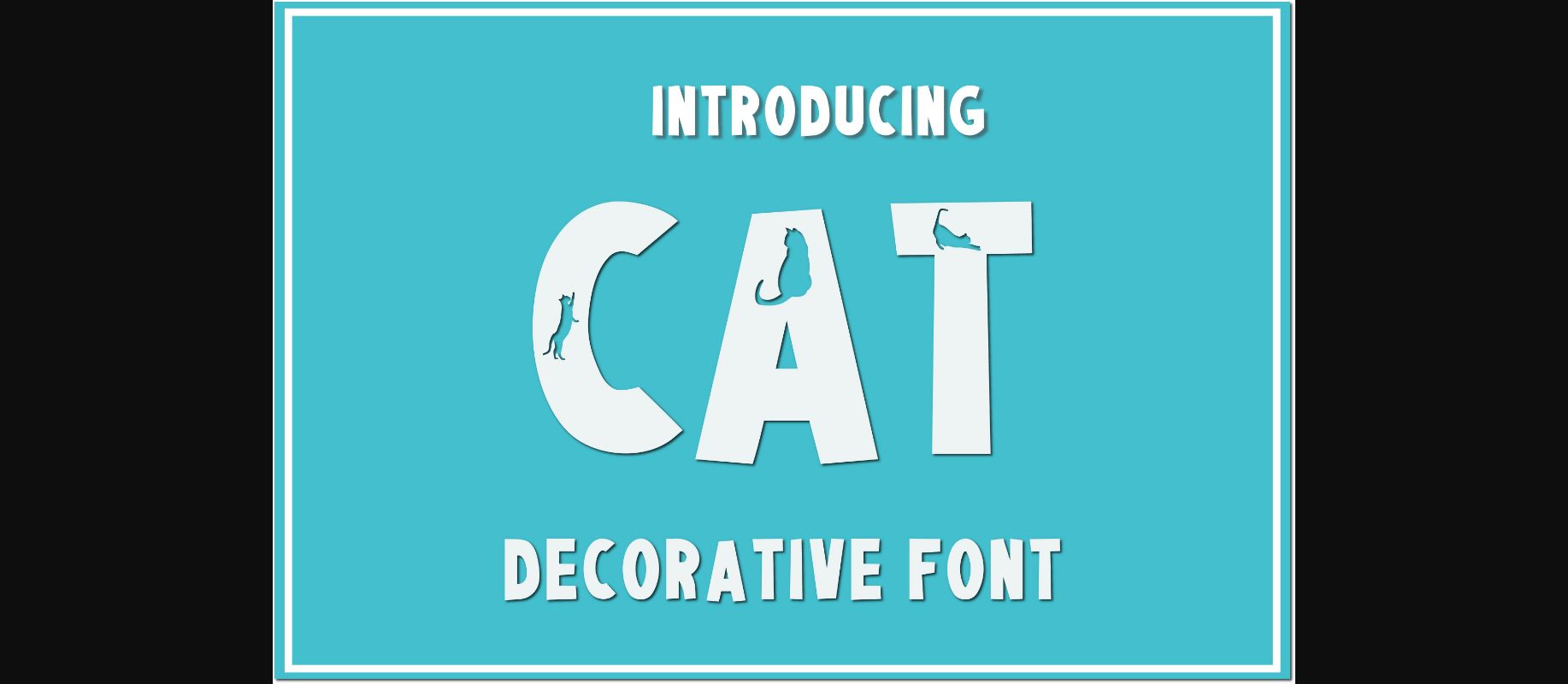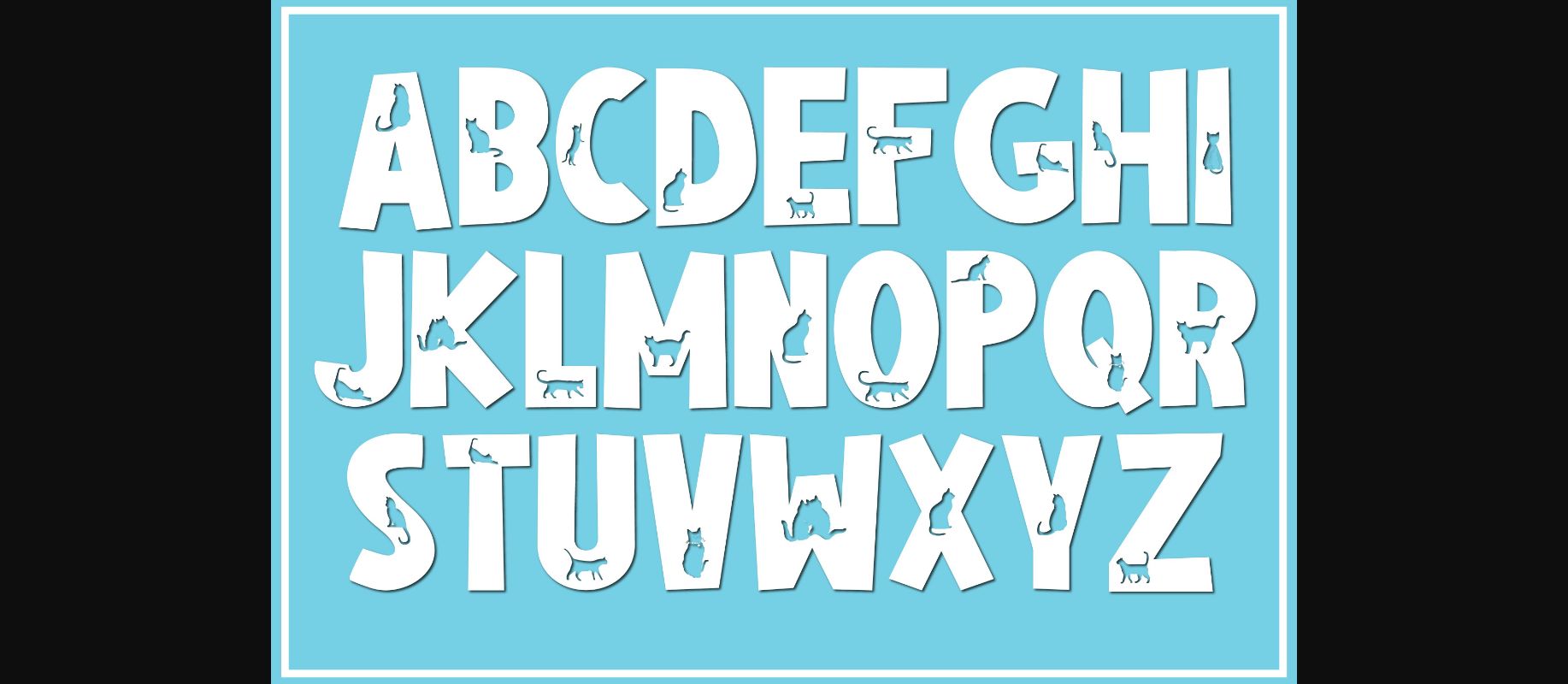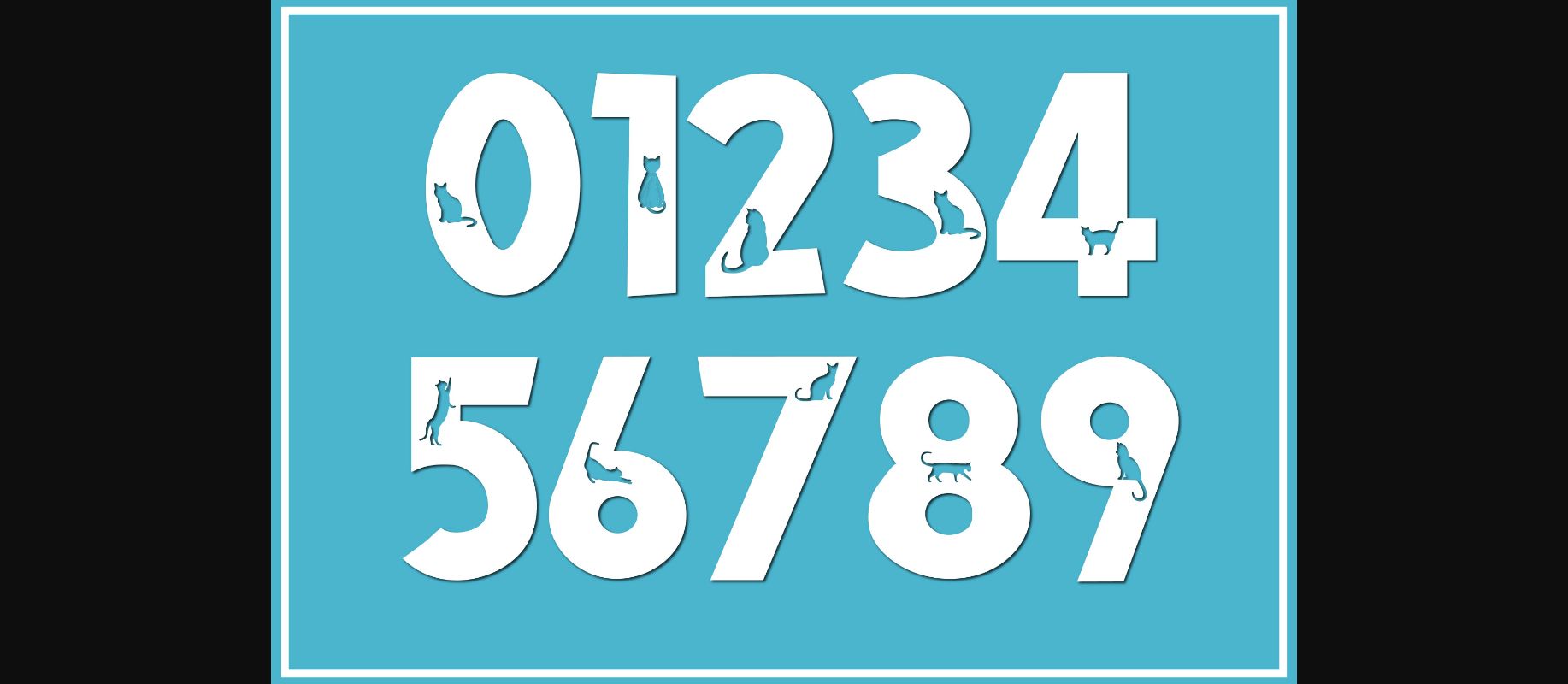
HomeDecorative FontsCat Lady Font Decorative Fonts Cat Lady Font FacebookXPinterestWhatsApp 1 of 5 ... Cat Lady Font Poster 2... Cat Lady Font Poster 3... Cat Lady Font Poster 4... Cat Lady Font Poster 5... About Cat Lady Font Cat Lady is a fun and friendly decorative font. Whether you use it for cartoon-related designs, children’s games, or just any creation that requires a lovely touch, this font will be an amazing choice. DOWNLOAD NOW People also explored Relation Font Barokah Ramadhan Font Leaves Font Regina Elisa Font Rain Font Hanging Font Short Handmade Font Readmitted Font Chaotic Chloe Font 308 0 TagsCat Lady Font Previous articleHappy Beels FontNext articleBruneheart Font LEAVE A REPLY Cancel reply Comment: Please enter your comment! Name:* Please enter your name here Email:* You have entered an incorrect email address! Please enter your email address here Website: Save my name, email, and website in this browser for the next time I comment. Personal Use Free Stone Garden Personal Use Free Read more about this font Delions Personal Use Free Read more about this font Mail Ray Stuff Personal Use Free Read more about this font Cinderella Personal Use Free Read more about this font BLOG Fonts That Capture the Spirit of New York City New York City is more than just a place—it’s an experience, a rhythm, a visual language... Best Fonts for T-Shirt Design – Top 2025 Picks How to Cut Any Font on Cricut: Convert a Font to SVG (Free) Free vs Paid Fonts: Why Investing in Premium Fonts Is Worth It